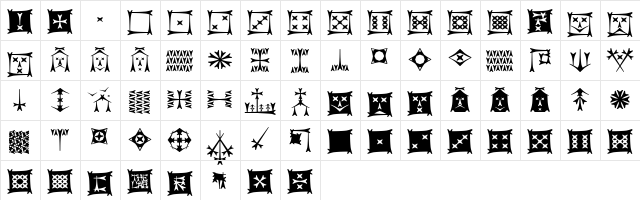
Carbolith Trips Regular
Design Context for Carbolith Trips Typeface
Carbolith Trips is a composed and adaptable typeface that performs quietly and consistently across a wide range of design contexts.